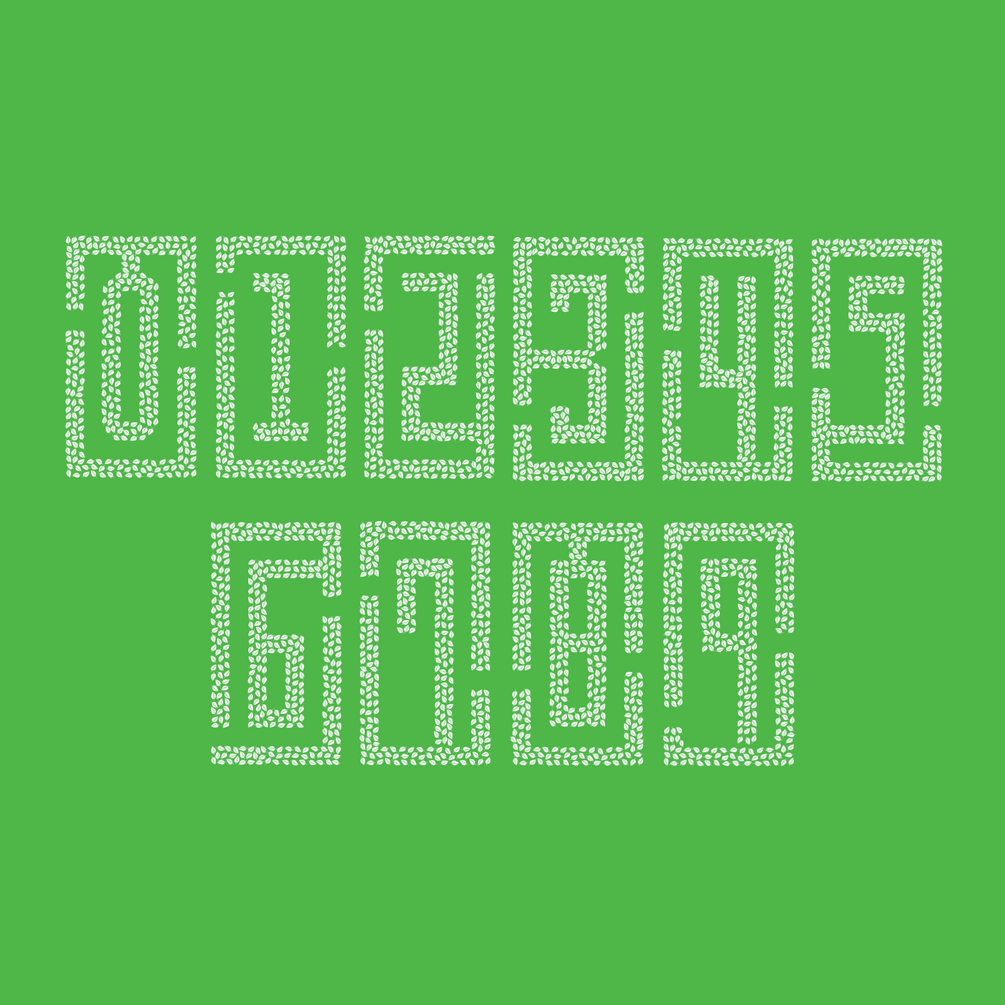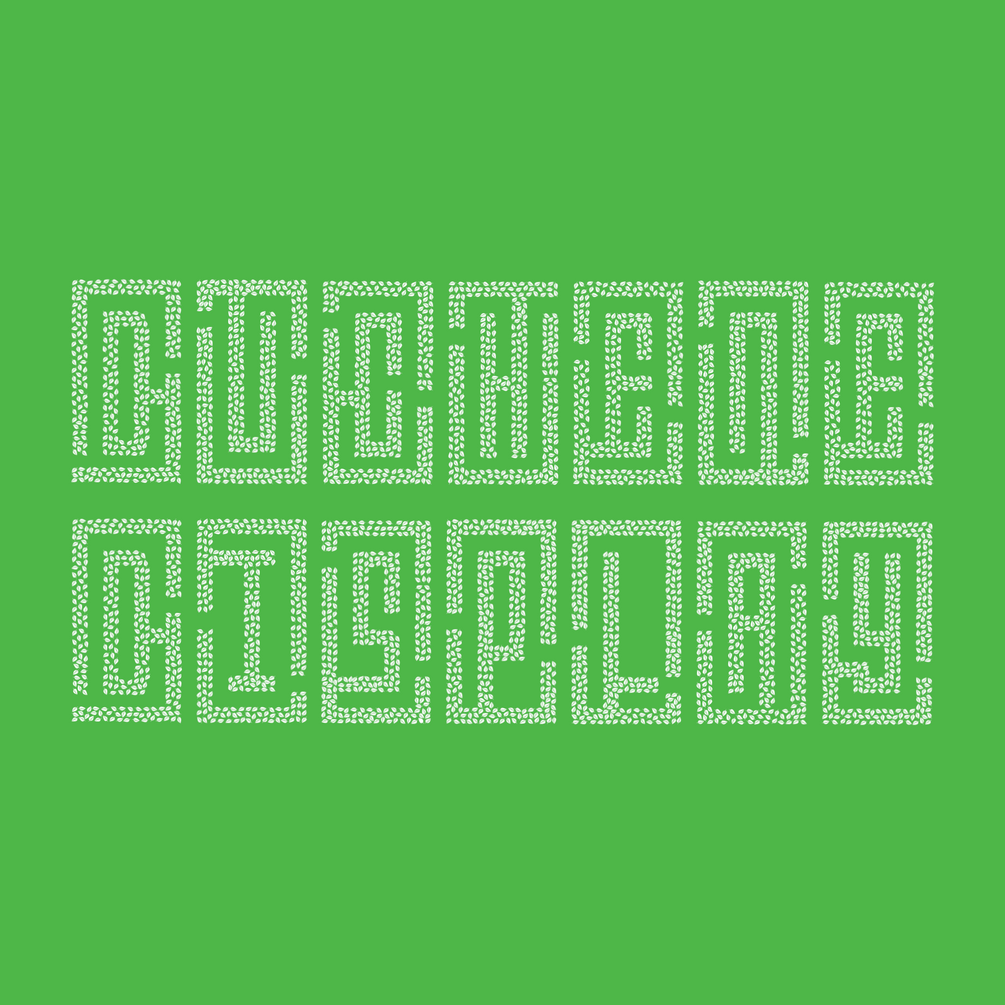
Duchene Display
Duchêne Display is a typeface inspired by 18th Century etchings of garden mazes. It's names-sake is derived from the French maze designer Achille Duchêne, who was an acknowledged maze and landscape designer.